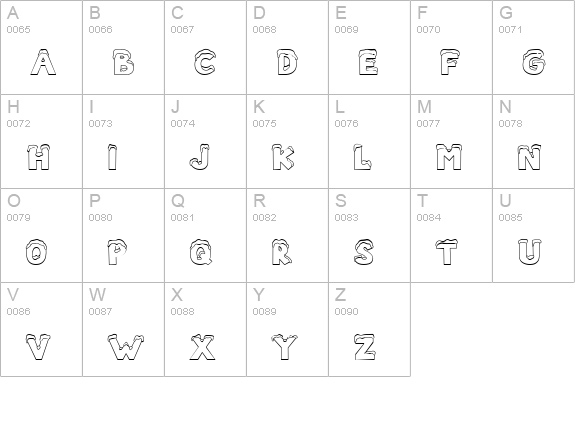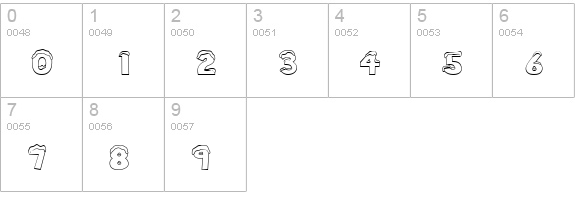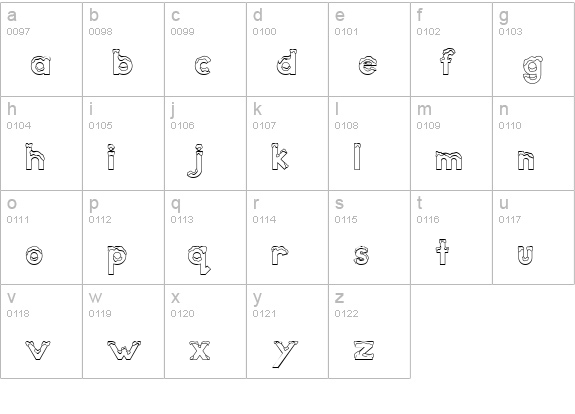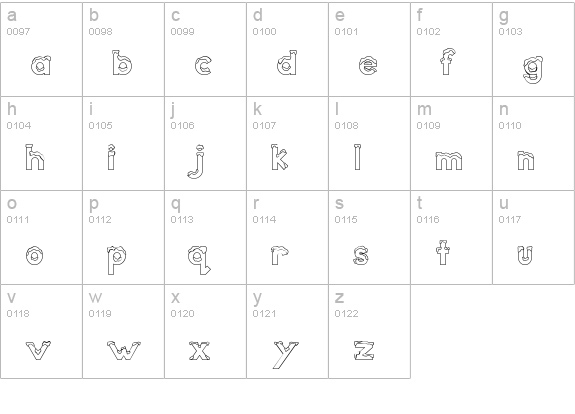
CK Snow Font Details
Introducing CK Snow font, a charming and whimsical typeface perfect for adding a touch of winter magic to your projects. Featuring delicate snowflake-inspired details and a playful yet elegant design, CK Snow is sure to bring a festive feel to your designs. This unique font is ideal for holiday cards, winter-themed invitations, and seasonal branding. Best of all, CK Snow is available for free download at FontsMarket.com. Simply visit the website to get your hands on this delightful font and start incorporating its snowy charm into your creations today. Let CK Snow font be the perfect addition to your design toolbox for all your winter-inspired projects.